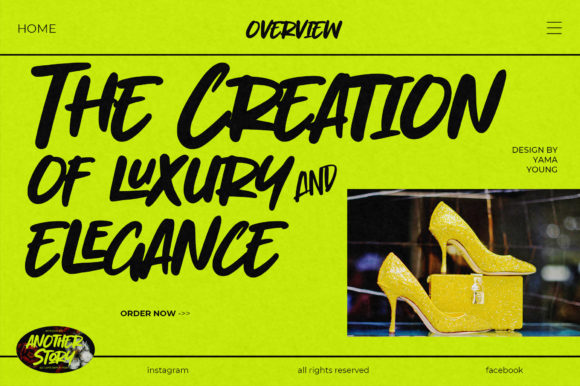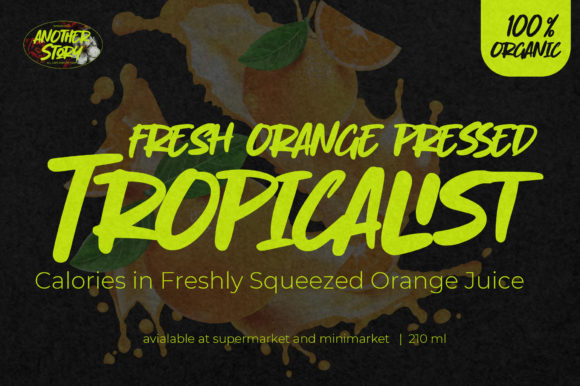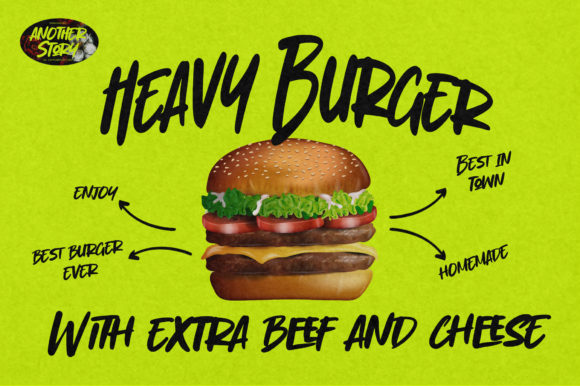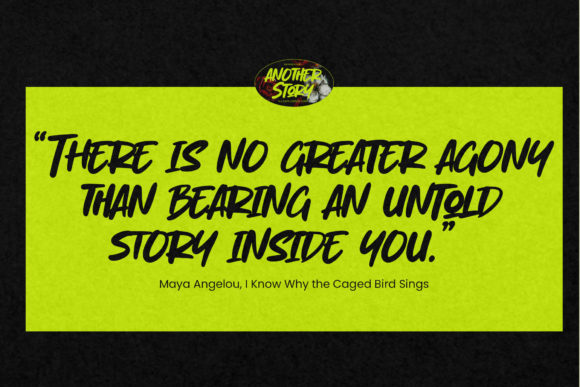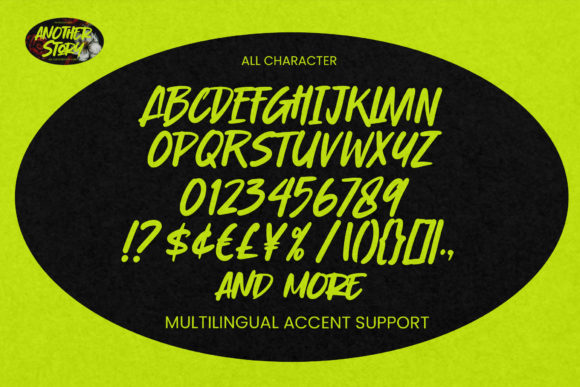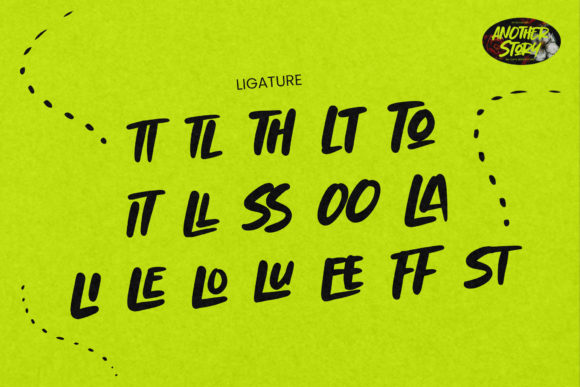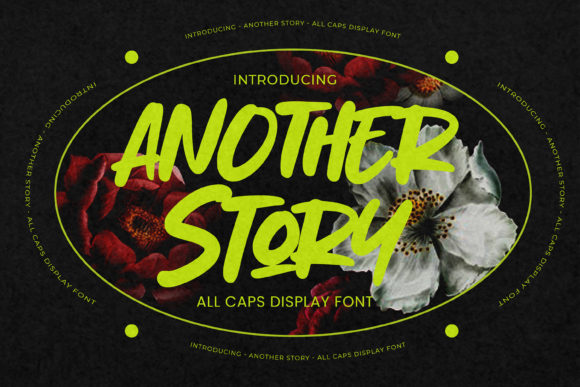
Introducing Another Story Font: Elevate Your Designs with Authentic Typography
In the world of design, typography plays a crucial role in conveying messages, evoking emotions, and creating a lasting impression. When it comes to selecting the perfect font for your project, you want something that not only grabs attention but also exudes a sense of authenticity. This is where Another Story Font comes in – a bold and natural-looking display font designed to bring a touch of realism to your designs.
What is Another Story Font?
Another Story Font is a carefully crafted display font that boasts a unique blend of boldness and natural elegance. Its authentic feel makes it an ideal choice for designers and crafters looking to add a personal touch to their projects. Whether you’re working on banners, product packaging, marketing materials, social media posts, or more, Another Story Font is the perfect companion to help you achieve your creative goals.
Key Features of Another Story Font
- Bold and Natural-Looking: Another Story Font features a bold yet natural-looking design that instantly captures attention and adds a touch of sophistication to your projects.
- Authentic Typography: With its authentic feel, this font is perfect for designers and crafters who want to create a genuine connection with their audience.
- Versatile: Another Story Font is suitable for a wide range of projects, including banners, product packaging, marketing materials, social media posts, and more.
- Easy to Read: Despite its bold design, Another Story Font remains easy to read, ensuring that your message is conveyed clearly and effectively.
Use Cases for Another Story Font
Another Story Font’s versatility makes it an excellent choice for various design projects. Here are some use cases to get you started:
- Banners: Create eye-catching banners that showcase your brand’s personality and message.
- Product Packaging: Elevate your product packaging with a font that exudes quality and authenticity.
- Marketing Materials: Use Another Story Font in your marketing materials, such as brochures, flyers, and posters, to create a lasting impression.
- Social Media Posts: Add a touch of personality to your social media posts and stand out in a crowded online landscape.
Benefits of Using Another Story Font
By incorporating Another Story Font into your designs, you can enjoy several benefits, including:
- Enhanced Visual Appeal: Another Story Font’s bold and natural-looking design instantly enhances the visual appeal of your projects.
- Improved Readability: Despite its bold design, this font remains easy to read, ensuring that your message is conveyed clearly and effectively.
- Increased Engagement: By using a font that exudes authenticity, you can create a stronger connection with your audience and increase engagement.
- Time-Saving: Another Story Font is a versatile font that can be used across various projects, saving you time and effort in the long run.
Tips for Using Another Story Font
To get the most out of Another Story Font, here are some tips to keep in mind:
- Experiment with Sizes: Another Story Font looks great in various sizes, so don’t be afraid to experiment and find the perfect size for your project.
- Pair with Other Fonts: Try pairing Another Story Font with other fonts to create a unique and visually appealing combination.
- Use it Consistently: Use Another Story Font consistently across your projects to create a cohesive brand identity.
Another Story Font is a powerful tool for designers and crafters looking to add a touch of authenticity to their projects. With its bold and natural-looking design, versatility, and ease of use, this font is perfect for a wide range of applications. By incorporating Another Story Font into your designs, you can elevate your typography, enhance visual appeal, and create a lasting impression on your audience.